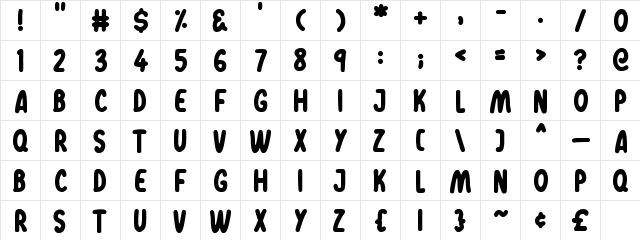
Dreamwalks Regular Font Preview
Dreamwalks Regular
Design Context for Dreamwalks Typeface
Dreamwalks is a composed and adaptable typeface that performs quietly and consistently across a wide range of design contexts.